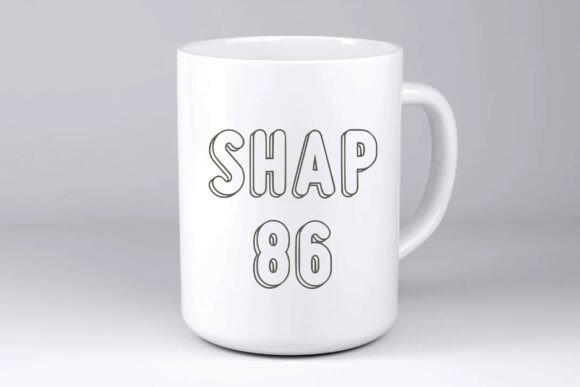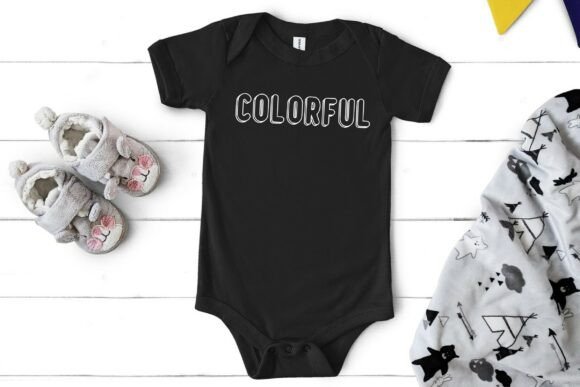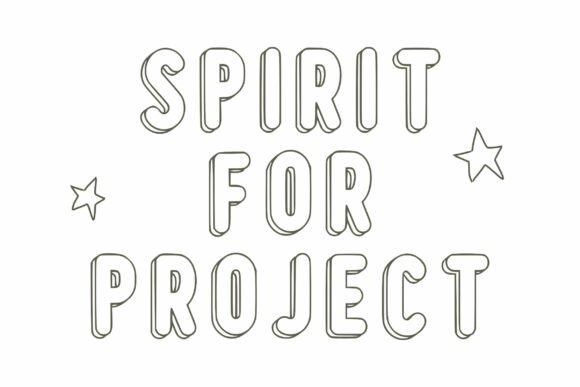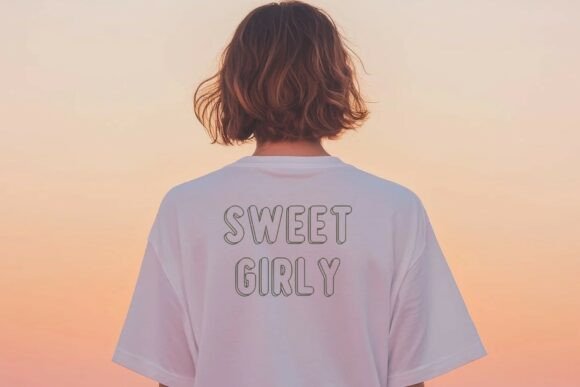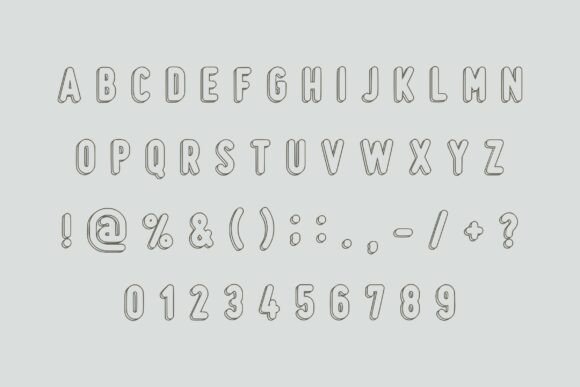
Discover the Power of the Outline Artwork Font
Have you ever stared at a blank canvas, wondering where to start your next creative project? The feeling of uncertainty can be daunting, but what if you had the perfect design resource to spark your imagination? Enter the Outline Artwork Font, a modern display typeface that’s about to become your new best friend. With its bold, rounded silhouette and “outline” style, this font is the ultimate clean canvas for designers looking to make a statement.
Whether you’re working on a high-quality design for social media, a blog, or a YouTube thumbnail, the Outline Artwork Font is the perfect choice. Its transparent background allows your background textures, colors, or photos to breathe through the letters, making it an incredibly versatile tool for layered designs. And the best part? It’s available for free download, so you can start creating without breaking the bank.
Key Features of Outline Artwork Font
- Transparent background, enabling seamless integration with other design elements and backgrounds.
- Resolution-independent design, ensuring crisp and clear appearance at various sizes and resolutions.
- Unique outline style, perfect for adding a creative touch to logos, graphics, and other design projects.
- Scalable design, allowing users to resize the font without compromising its quality or clarity.
Honest Review: Outline Artwork Font
I recently had the chance to work with the Outline Artwork Font and I must say it’s been a game-changer for my creative projects. The high quality of this font has made it an invaluable design resource, allowing me to take my artwork to the next level.
- ✨ Clean and modern design that adds a touch of sophistication to any project
- ✨ Perfect for creating striking visuals with transparent backgrounds
- ⚠️ Limited character set, which may be a concern for projects requiring a wide range of characters
- ⚠️ May not be suitable for projects requiring a large font size, as the outline design can become pixelated
Overall, I’m thoroughly impressed with the Outline Artwork Font. Its unique design and high quality make it a valuable asset for any designer looking to elevate their creative projects. While it may have some limitations, the benefits far outweigh the drawbacks, making it a must-have for any design resource collection.
The Outline Artwork Font is ideal for use in creative projects such as logo design, typography, and infographics. It is also suitable for use in presentations, documents, and social media graphics. With its high-quality design and transparent background, the Outline Artwork Font is a valuable design resource for any creative project.